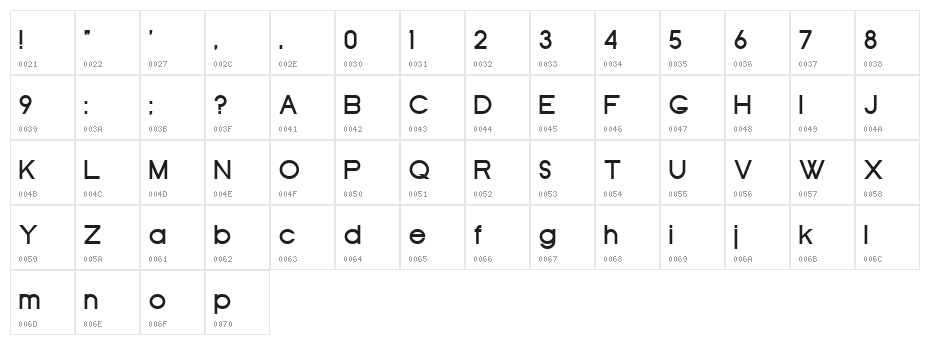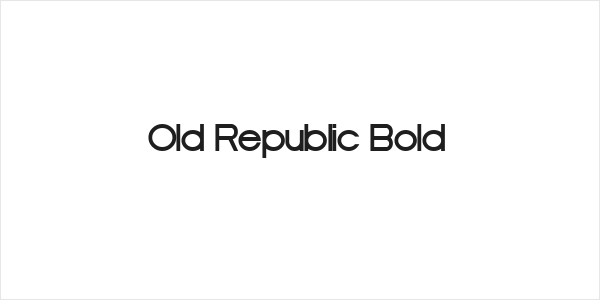
Old Republic Bold Font
Old Republic Bold Description
This font features a bold, geometric sans-serif style with a modern and futuristic appeal. The characters are constructed with clean, straight lines and sharp angles, giving it a structured and robust appearance. The uppercase letters are uniform in height, while the lowercase letters maintain a consistent x-height, contributing to its readability. The numerals are equally bold and align well with the overall design, making them stand out. Special characters are designed to match the boldness and geometric nature of the font, ensuring a cohesive look across all glyphs.
| Proposed Projects | Ideal for sci-fi themed projects, branding, posters, and digital interfaces. |